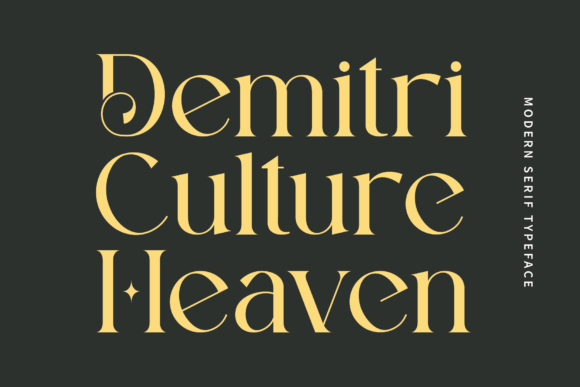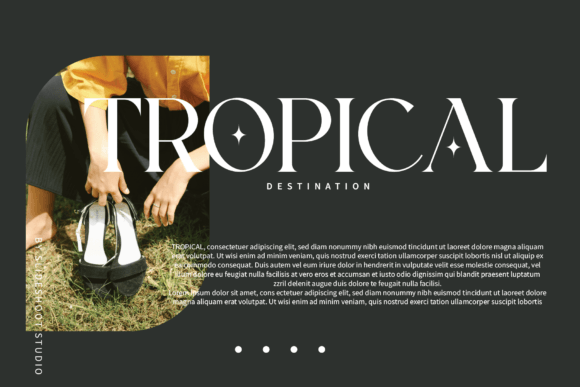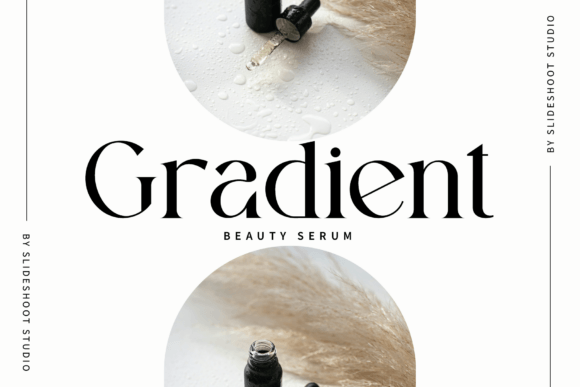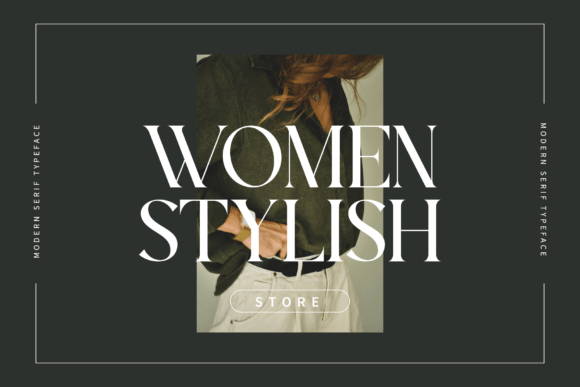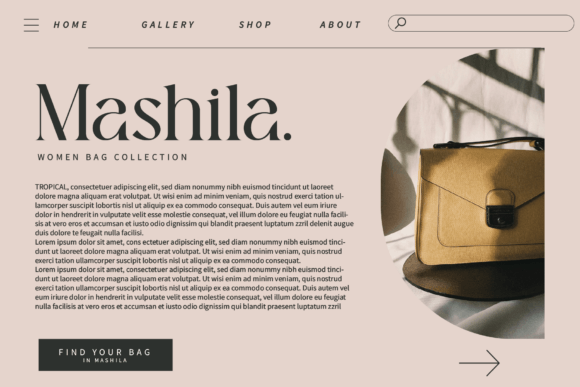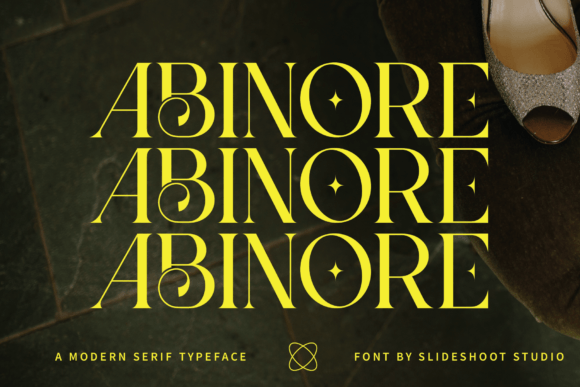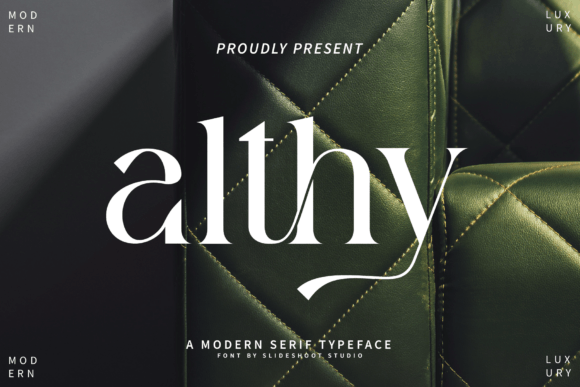
Introducing Althy Font: Elevate Your Designs with Sophistication and Elegance
In the world of typography, fonts play a crucial role in conveying the tone and personality of a design. For designers and crafters seeking a modern and classy serif font, Althy Serif is an exceptional choice. This beautiful font is designed to add a touch of sophistication and elegance to various design projects, making it an ideal partner for any creative endeavor.
What Makes Althy Serif Stand Out?
Althy Serif boasts a unique character that sets it apart from other fonts. Its modern and classy design makes it perfect for a wide range of applications, including invitation card design, logo creation, film titles, business cards, book titles, and branding. The font’s fine serif details exude a sense of refinement and luxury, allowing designers to create stunning visual content that captivates their audience.
One of the key benefits of Althy Serif is its versatility. This font can be paired with various design elements to create a cohesive and visually appealing look. Whether you’re working on a:
- Wedding invitation card: Add a touch of elegance and sophistication to your wedding stationery with Althy Serif.
- Logo design: Create a lasting impression with a logo that exudes professionalism and refinement.
- Film title or name: Give your movie a classy and sophisticated look with Althy Serif.
- Business card: Make a great first impression with a business card that features a modern and elegant font.
- Book title: Add a touch of luxury to your book’s cover with Althy Serif.
- Brand name: Establish a strong brand identity with a font that conveys sophistication and elegance.
Why Choose Althy Serif?
Althy Serif is more than just a font – it’s a design partner that can elevate your creative projects to new heights. Here are some reasons why designers and crafters love Althy Serif:
- Sophistication and elegance: Althy Serif’s fine serif details and modern design make it perfect for projects that require a touch of luxury.
- Flexibility: This font can be used for a wide range of applications, from print to digital designs.
- Easy to read: Althy Serif’s clear and legible design ensures that your message is conveyed effectively.
- Unique character: This font has a distinct personality that sets it apart from other serif fonts.
Tips for Using Althy Serif Effectively
To get the most out of Althy Serif, here are some tips to keep in mind:
- Pair it with contrasting fonts: Combine Althy Serif with sans-serif fonts or script fonts to create a visually appealing contrast.
- Experiment with font sizes: Use Althy Serif in different font sizes to create a hierarchy of information and add visual interest.
- Play with colors: Try Althy Serif with different colors to find the perfect combination that suits your design.
Althy Serif is a modern and classy serif font that can elevate your designs with sophistication and elegance. Its versatility, unique character, and ease of use make it an ideal partner for designers and crafters. Whether you’re working on a wedding invitation card, logo design, or film title, Althy Serif is the perfect choice. So why wait? Discover the power of Althy Serif and take your designs to new heights!